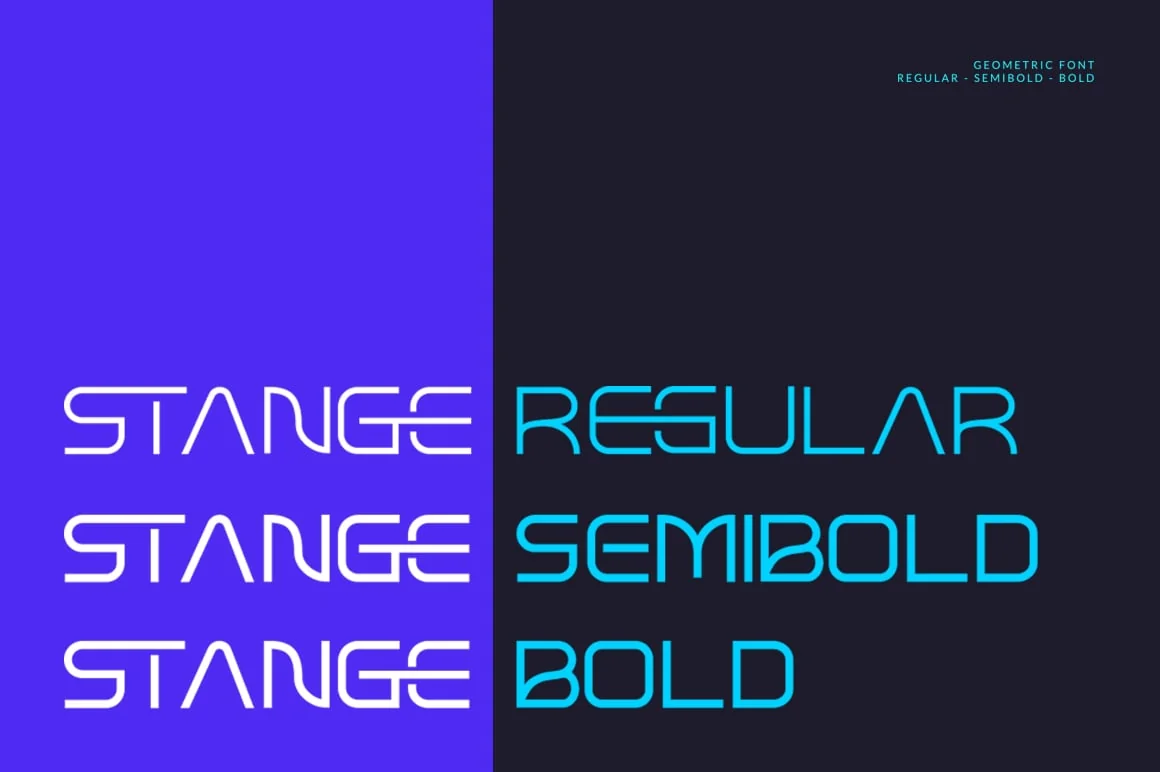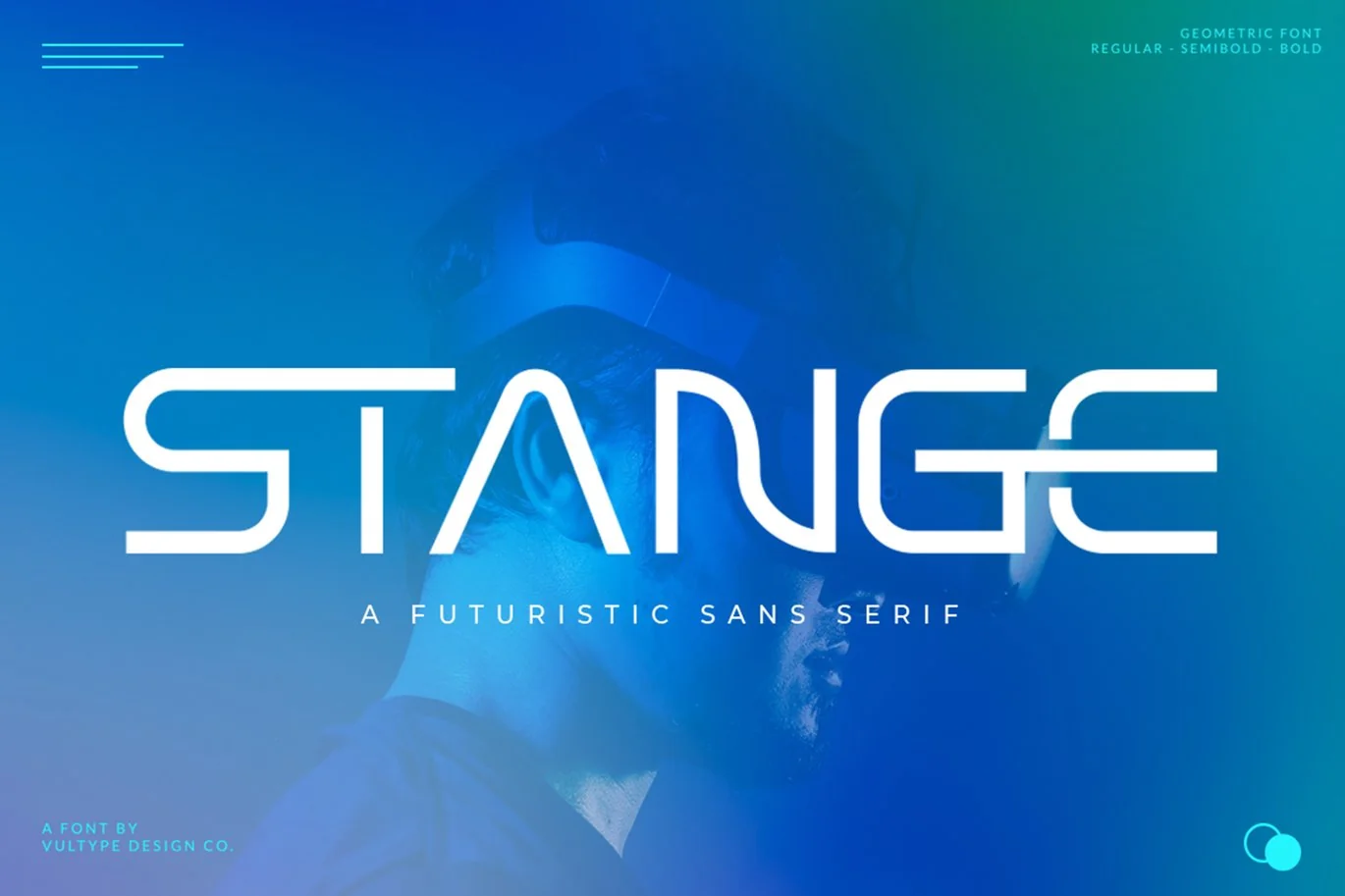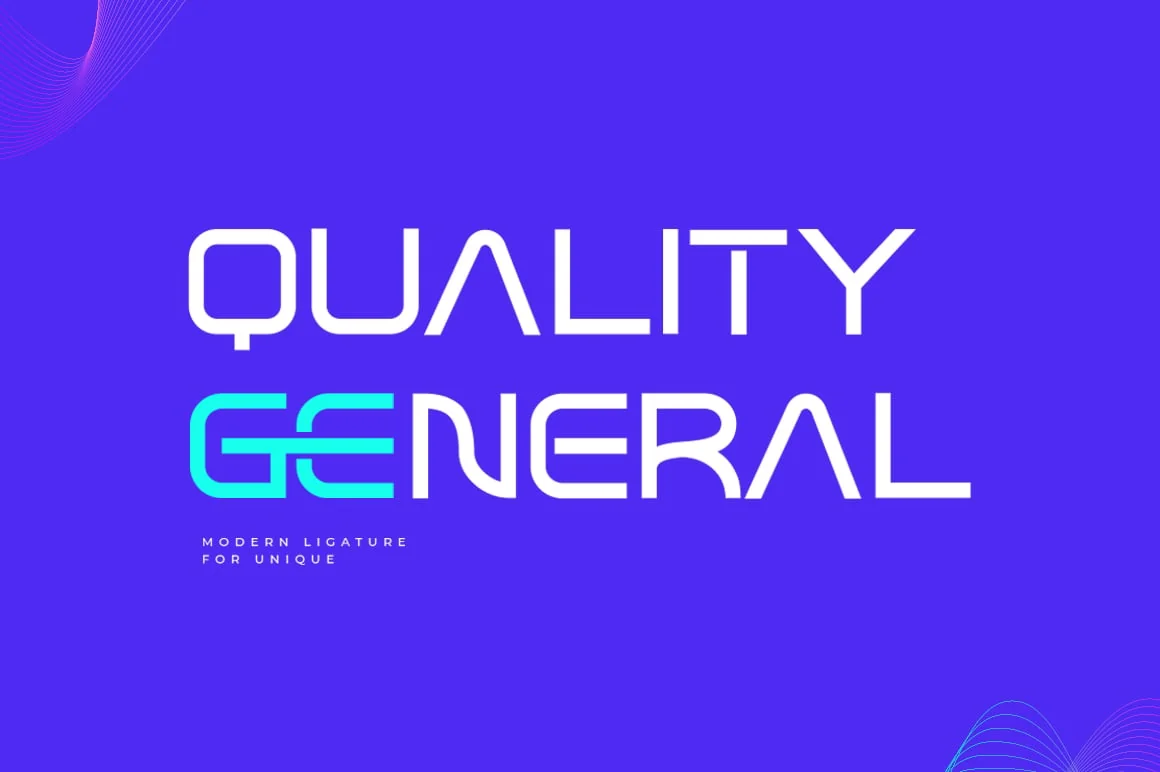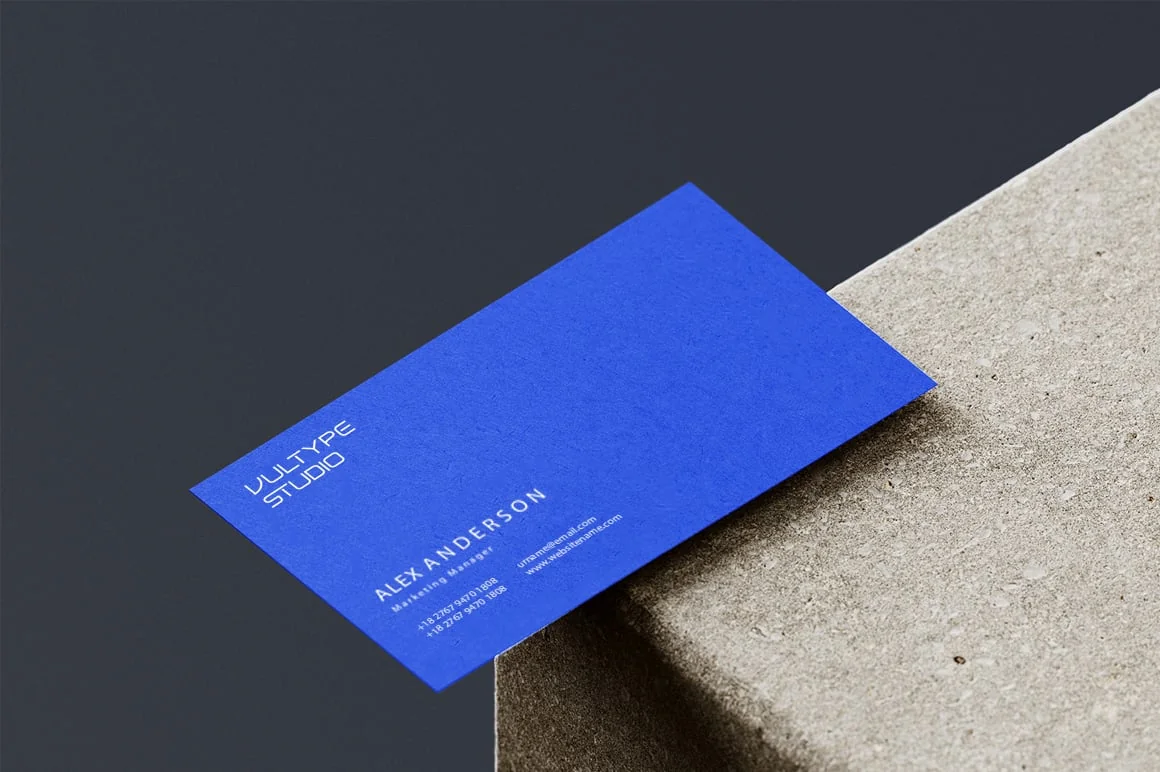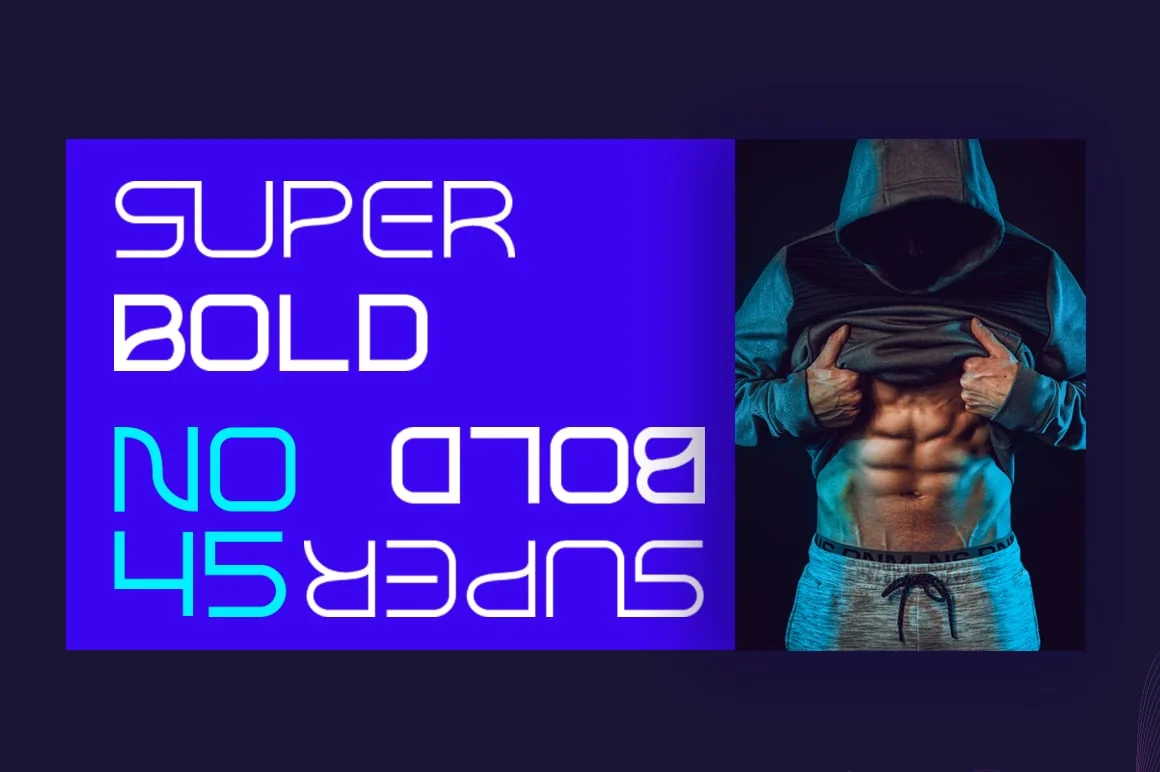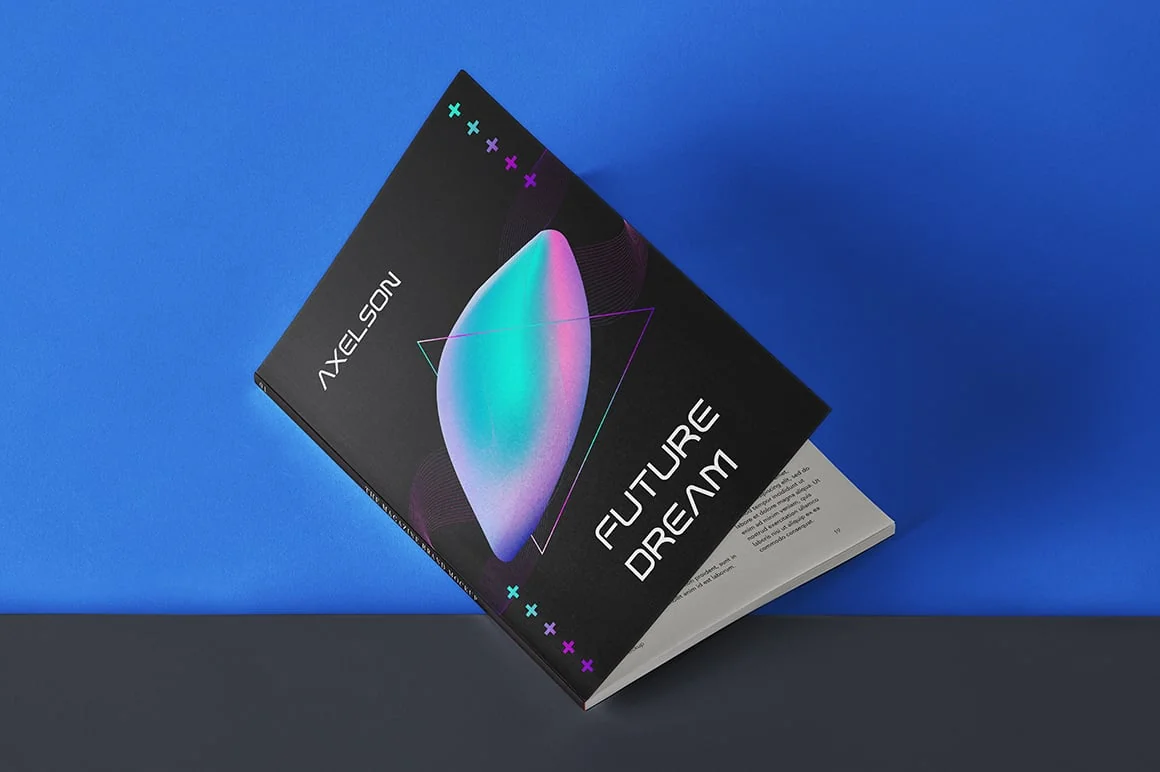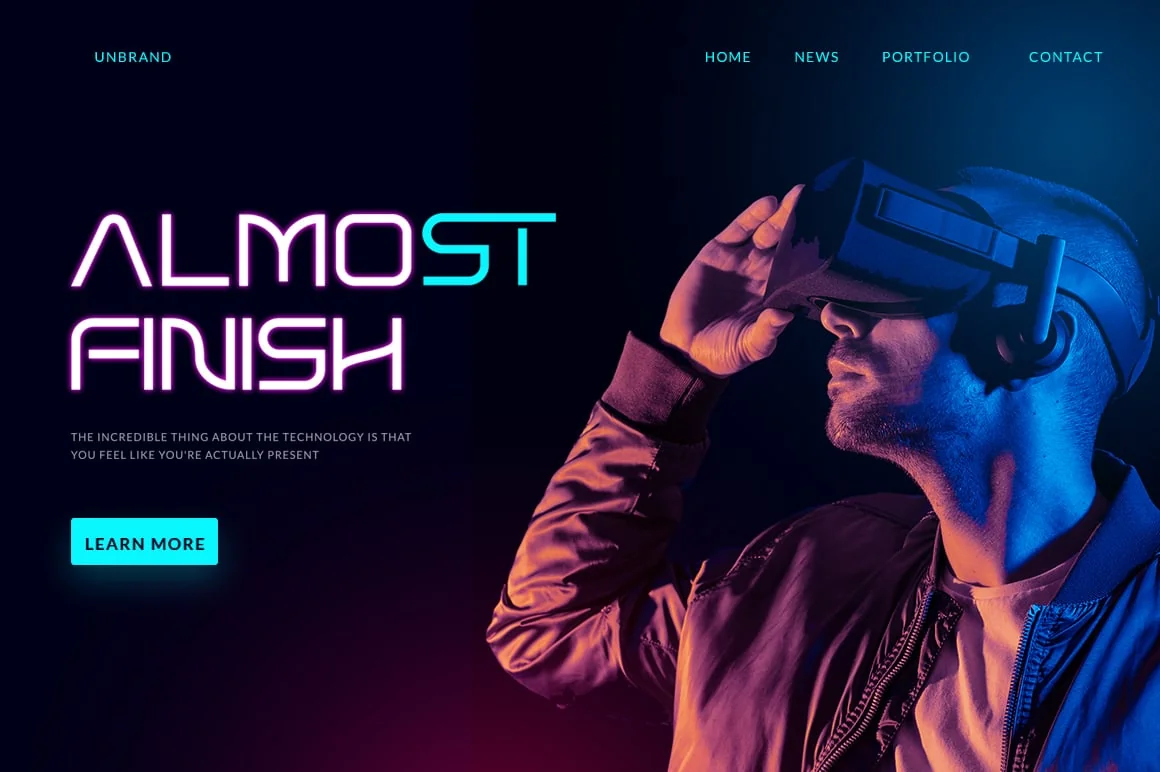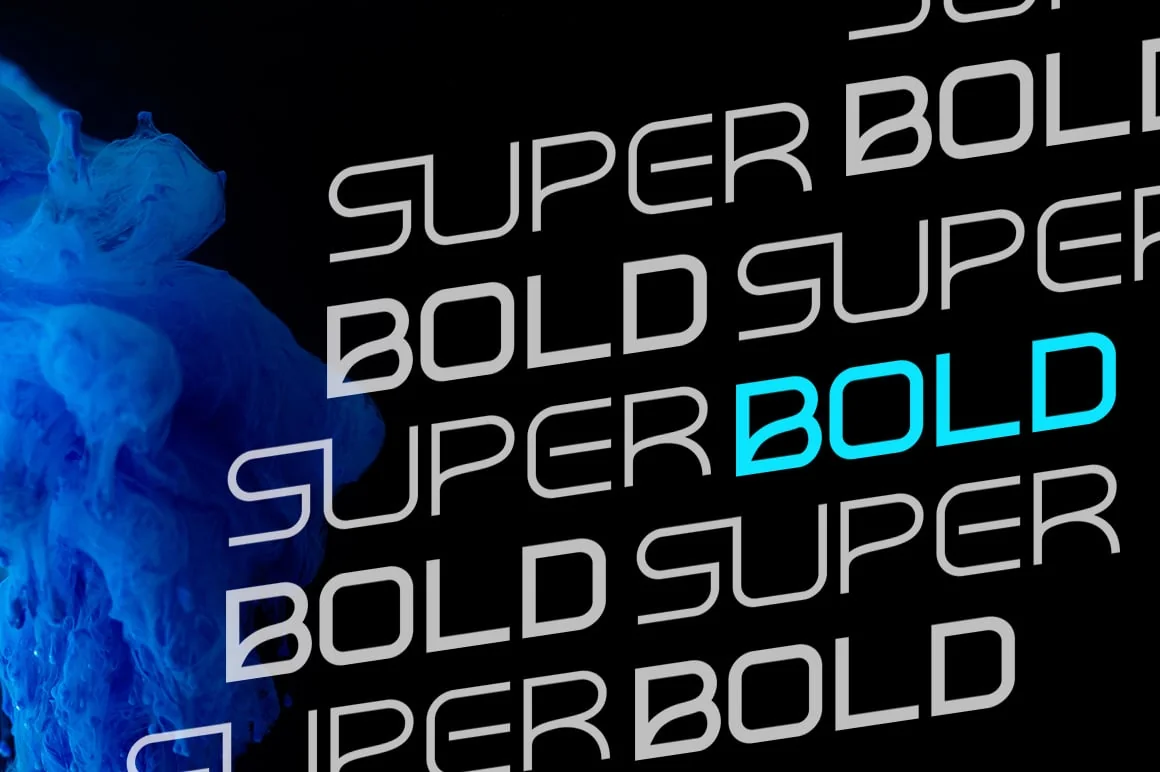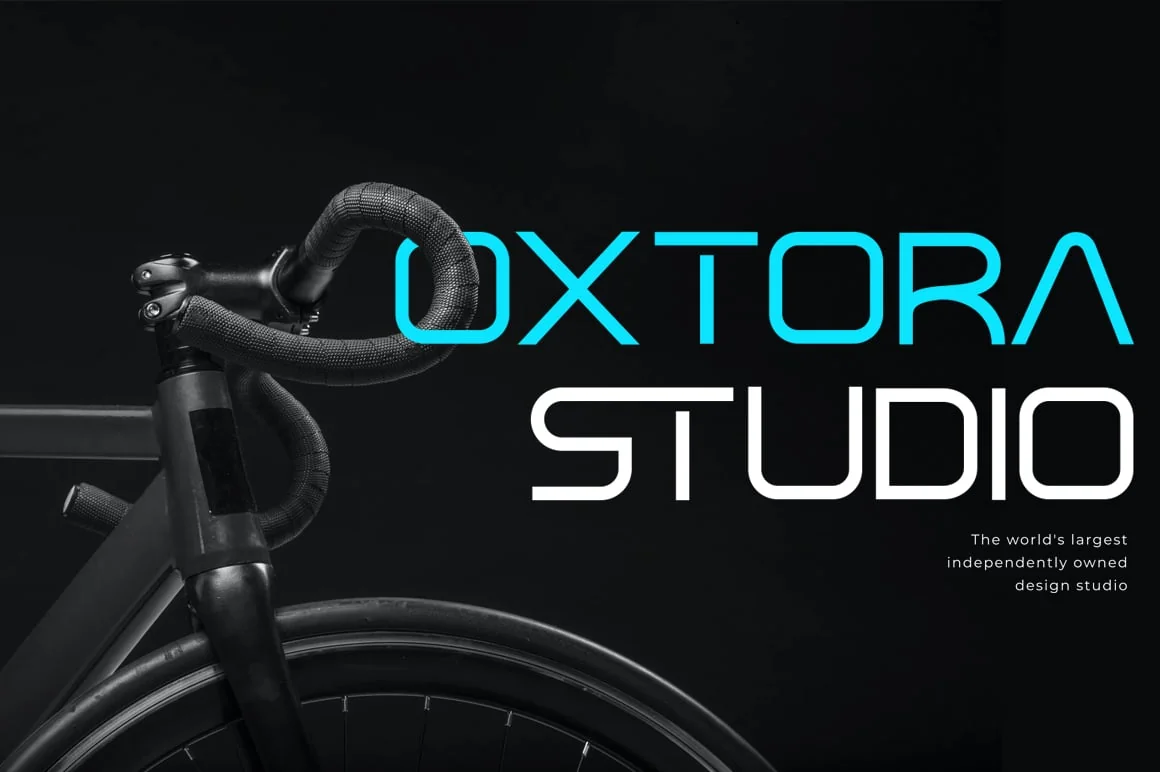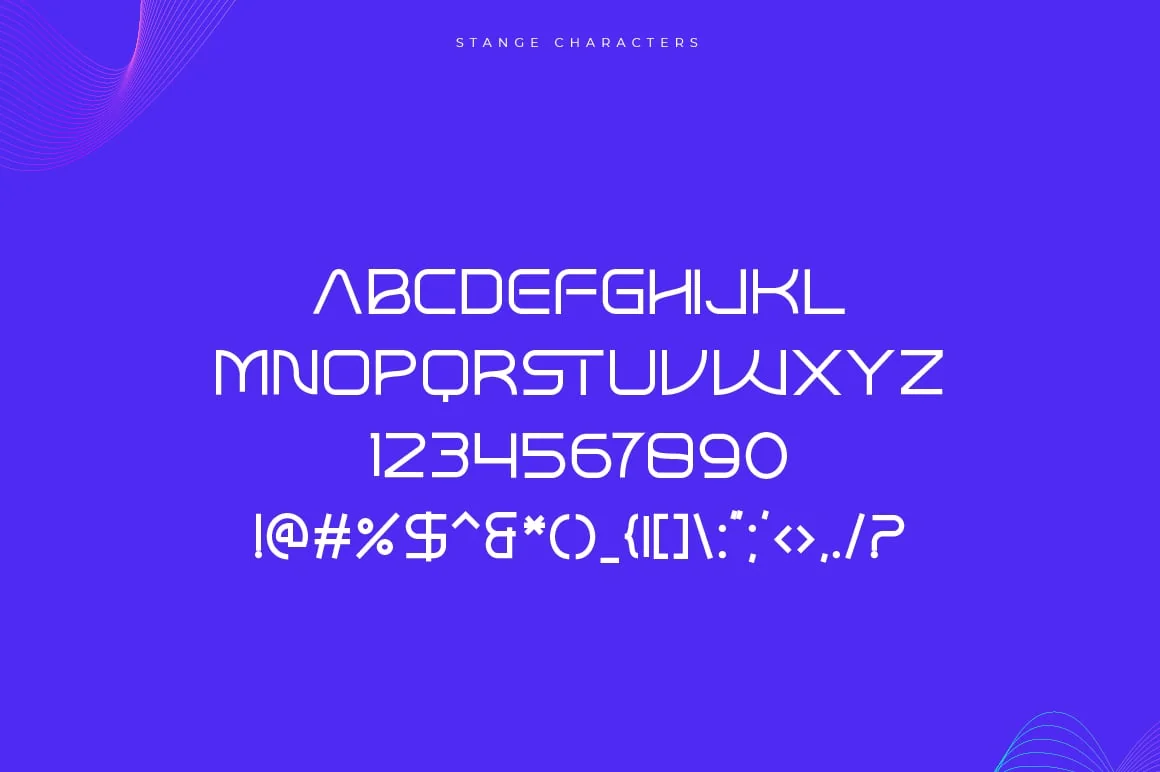
STANGE – Modern Futuristic Font
Introducing, STANGE, a futuristic logo font with Ligature!
STANGEis a sans based font with unique lowercase that will make your design looks futuristic and modern. You can use this font for any purpose, especially to make logotype.
You can mix and match the uppercase and lowercase to make your logo more readable. This font also have special alternates that will make your design more stand-out!